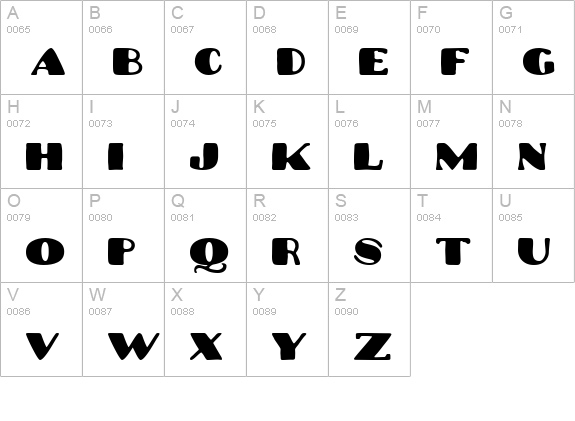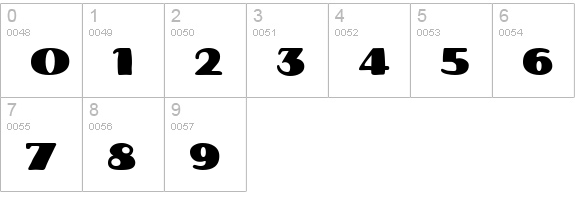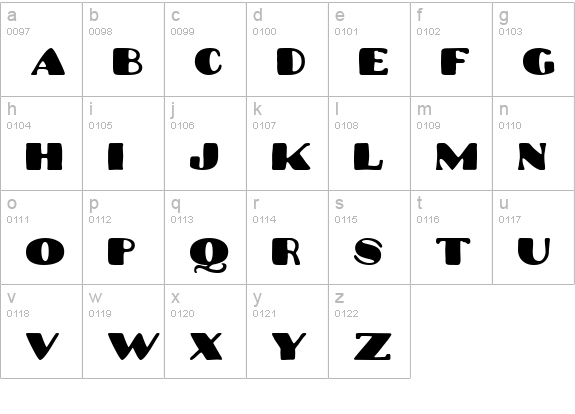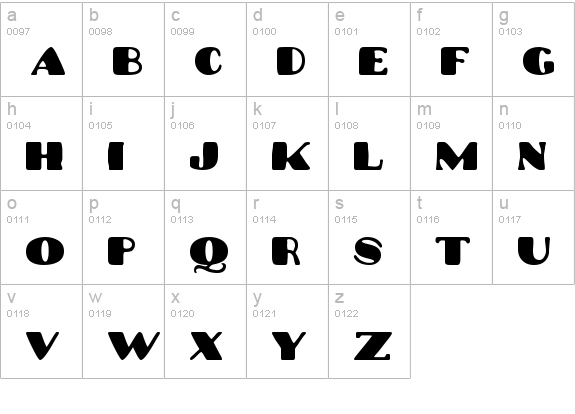
The Platinum Hub Caps Solid font is a sleek and modern typeface that exudes luxury and sophistication. With its bold and clean lines, this font is perfect for creating eye-catching designs that demand attention. The solid design adds a touch of elegance and professionalism to any project. What's even better is that this stunning font is available for free download at FontsMarket.com. Whether you're working on a branding project, logo design, or any other creative endeavor, the Platinum Hub Caps Solid font is sure to elevate your work to the next level. Don't miss out on this opportunity to add a touch of class to your designs with this exceptional font, all at no cost to you. Download it now and start creating stunning visuals that will leave a lasting impression.